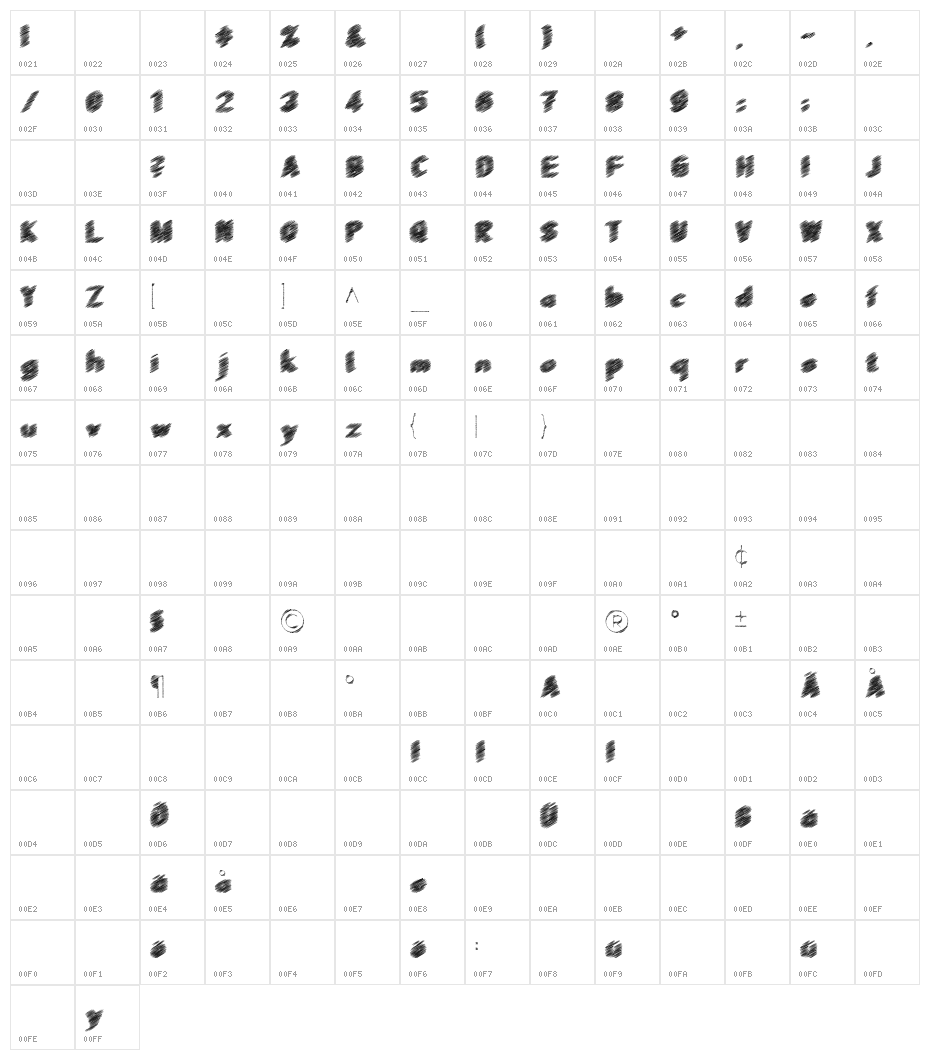
ScrFIBbLE Bold Font
ScrFIBbLE Bold Description
This font features a bold, textured style that mimics the appearance of hand-drawn, scribbled lines. The characters are filled with dense, diagonal strokes, giving them a dynamic and energetic look. The uppercase and lowercase letters maintain a consistent width, while the numbers and special characters follow the same scribbled pattern. This font's unique texture makes it stand out, adding a playful and artistic touch to any design. The overall appearance is informal and creative, making it suitable for projects that require a distinctive and eye-catching typeface.
| Proposed Projects | Ideal for artistic posters, creative branding, children's book covers, and playful graphic designs. |